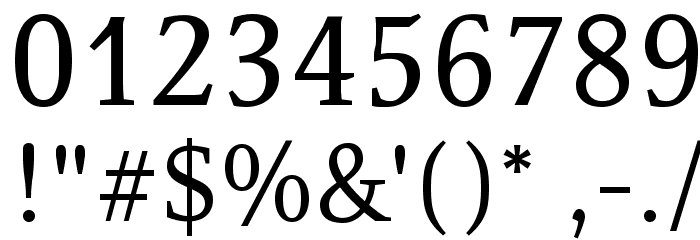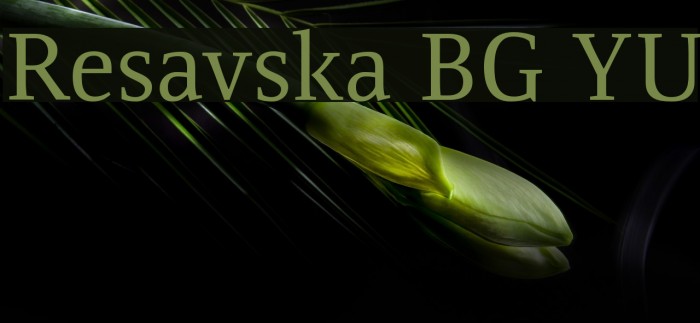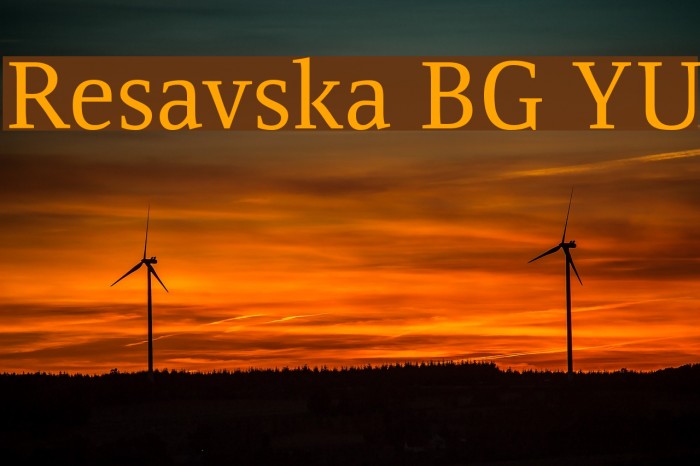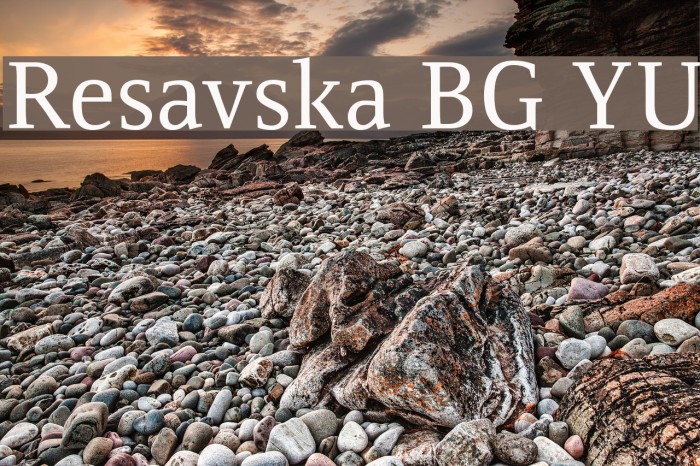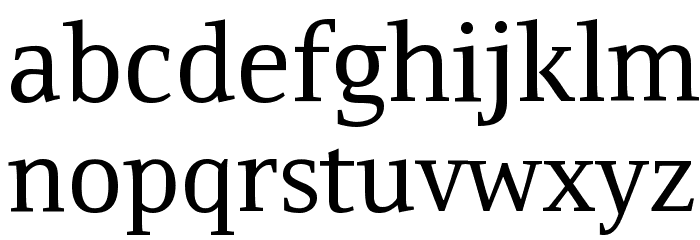
Resavska BG YU Font
This font features a classic serif style with a modern twist, characterized by its clean and elegant lines. The uppercase letters are bold and authoritative, while the lowercase letters maintain a refined and approachable appearance. The numerals are well-proportioned, ensuring readability and balance. Special characters are distinct and harmonize well with the overall design. The font's structure is versatile, making it suitable for a variety of applications, from formal documents to creative projects.
A modern serif font with clean lines and elegant proportions.
• Proposed Projects: Ideal for editorial design, branding, book covers, and corporate identity projects.